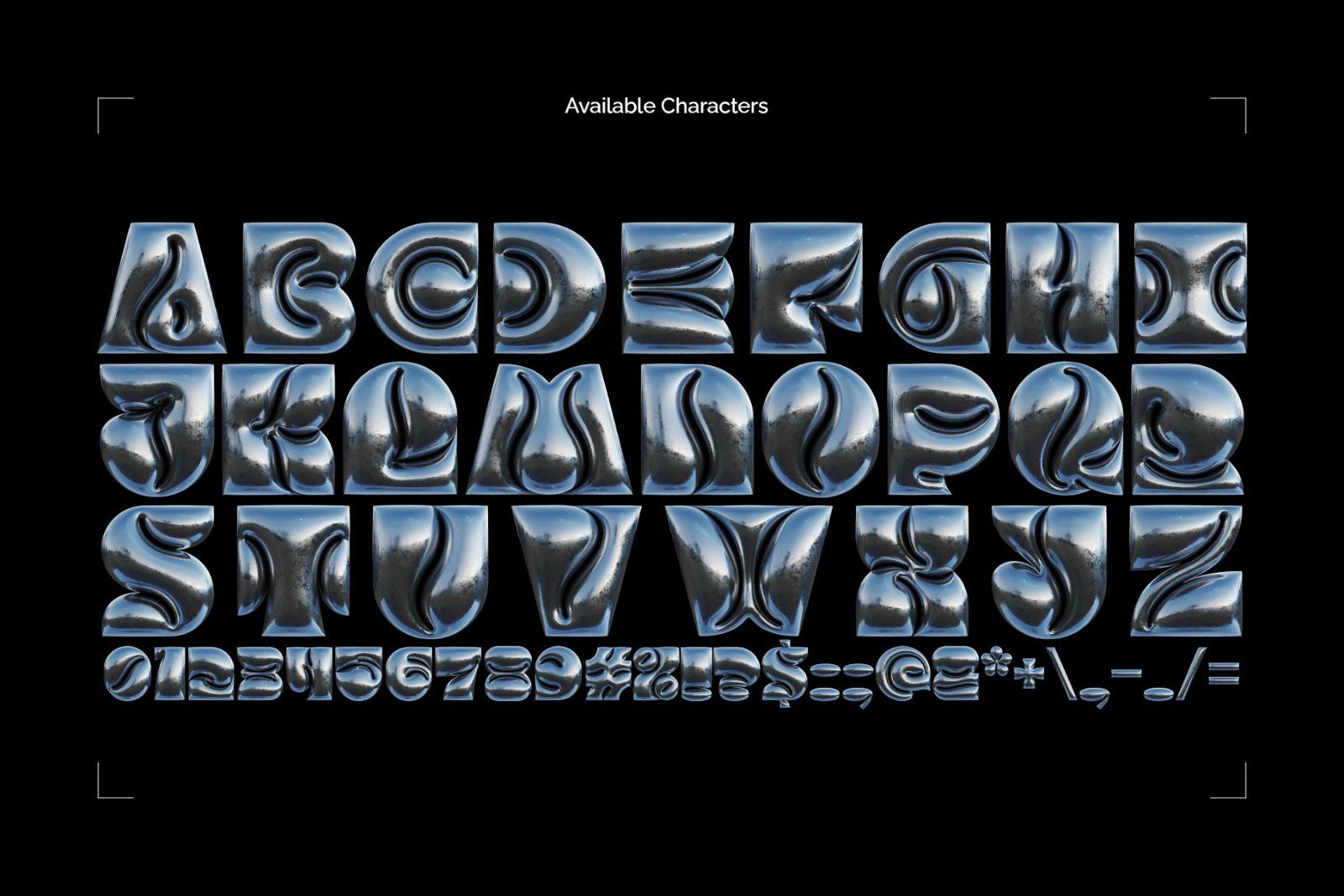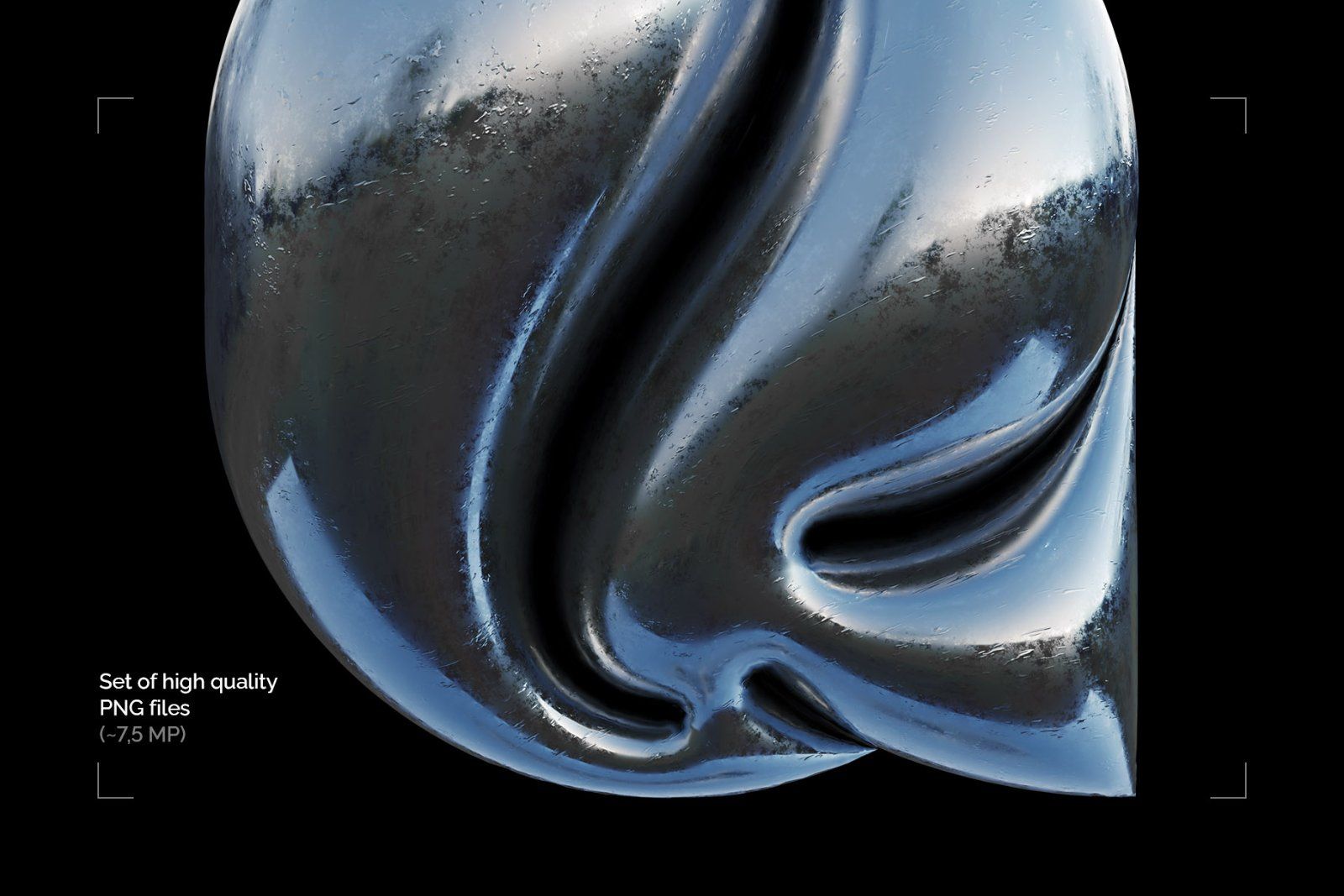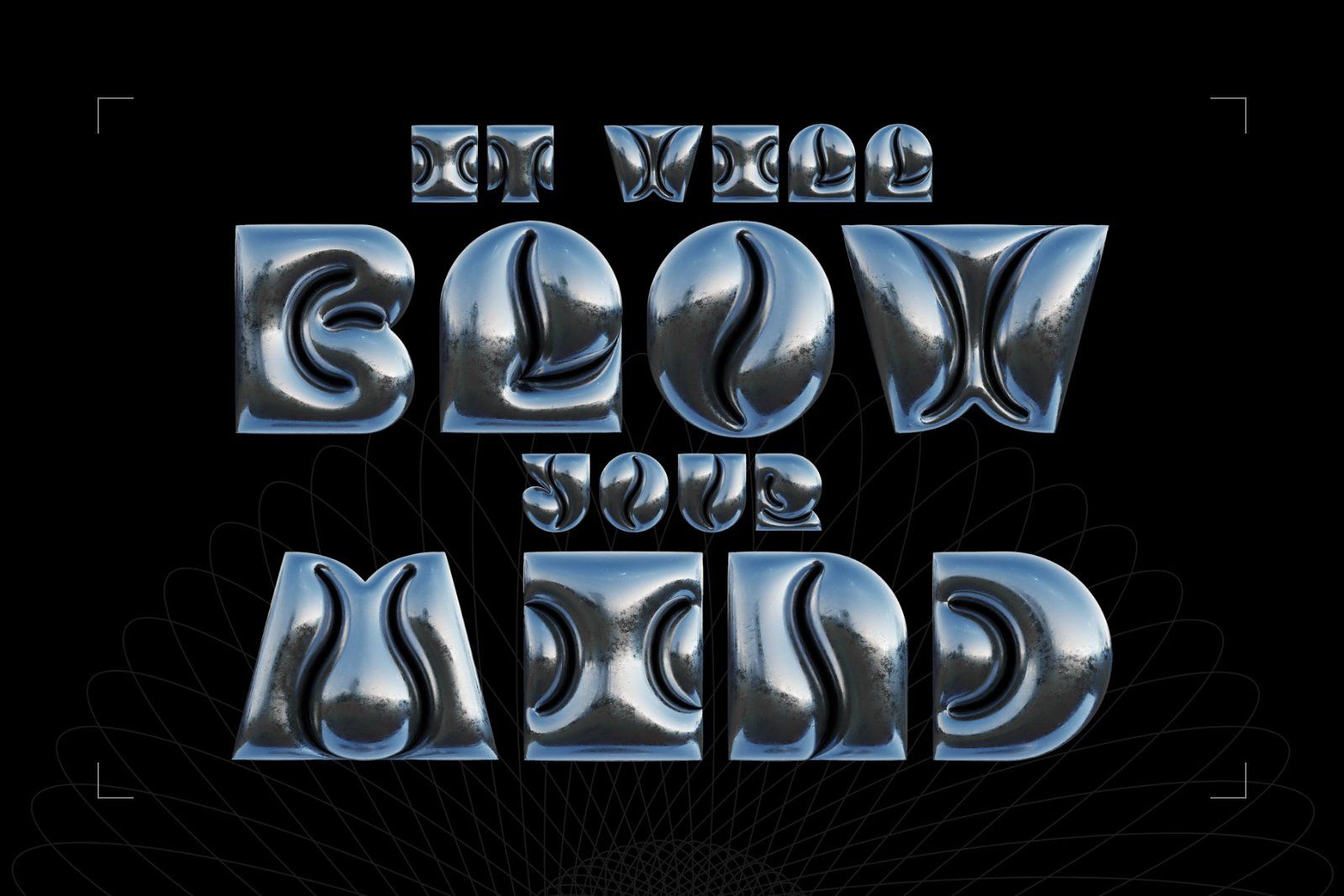
Hello! Presenting a color bitmap font - Inflated Foil. It's a 3d rendered typeface with glossy metallic effect.
First of all, it's a color bitmap OpenType-SVG font that can be used as a usual OTF font. Also, a set of full-resolution PNG files with transparent background is included. Please consider that only the English language and basic punctuation are available, please check out the screenshot with all existing characters.